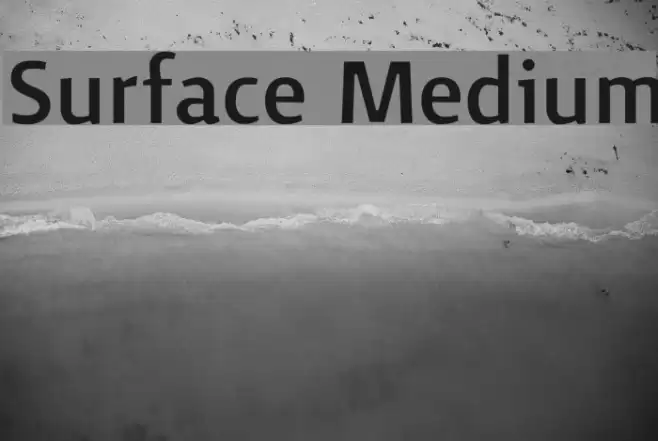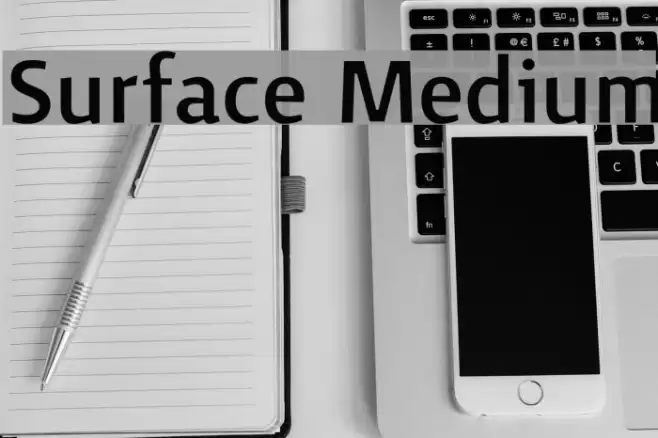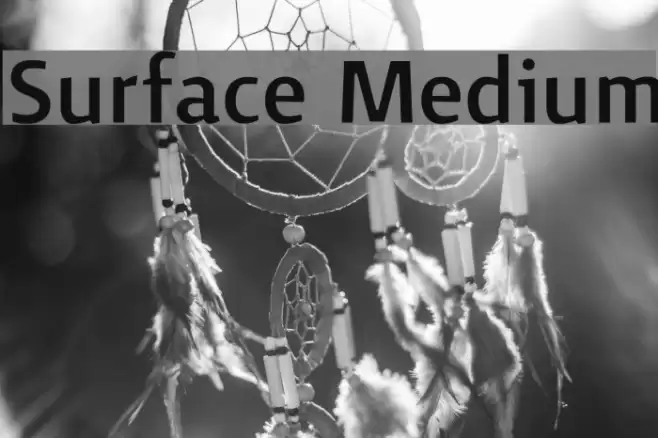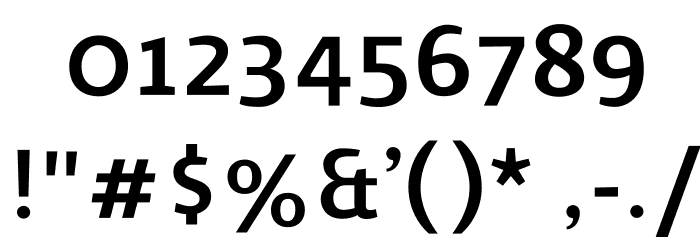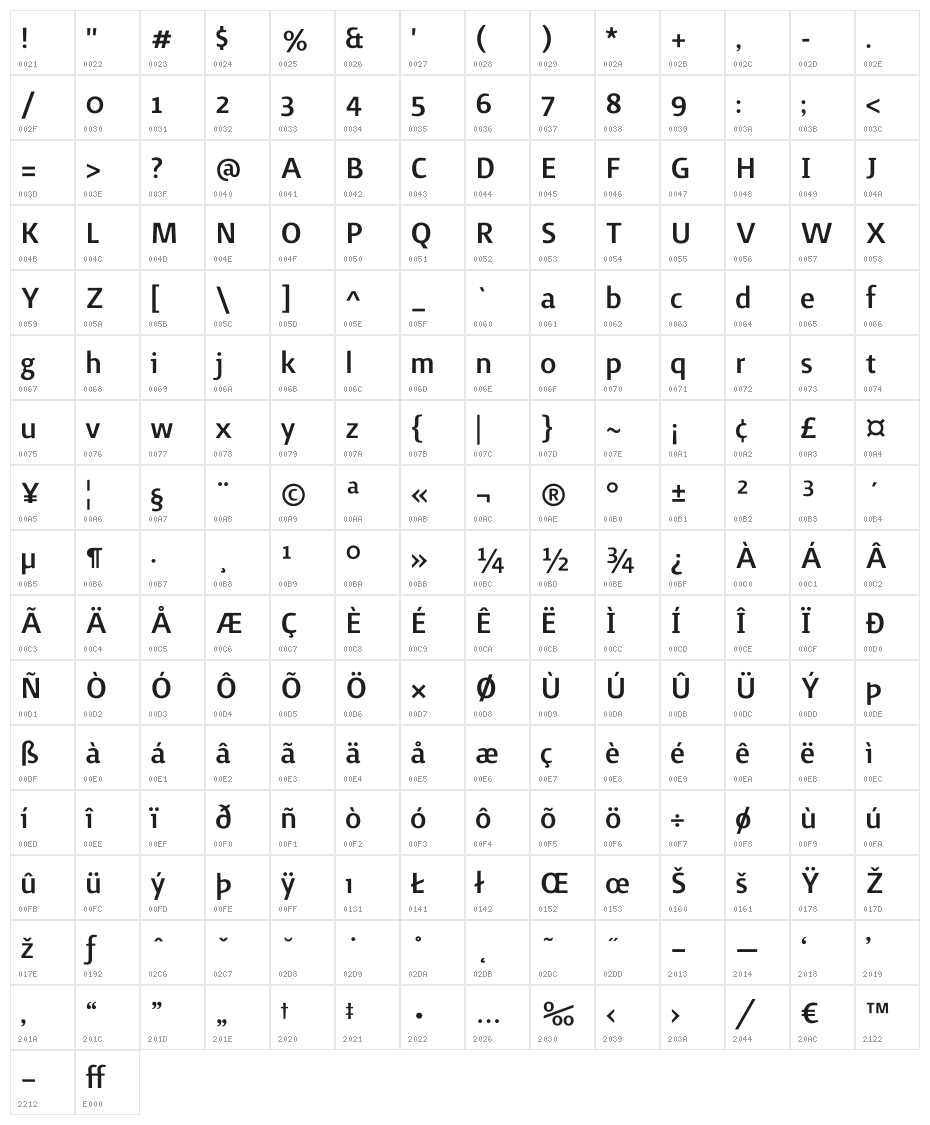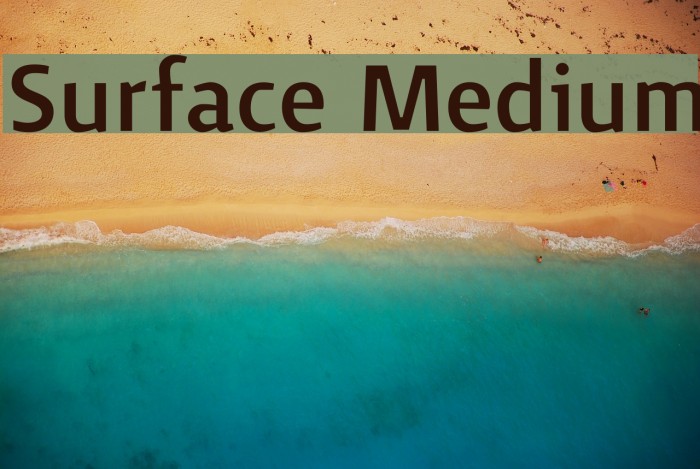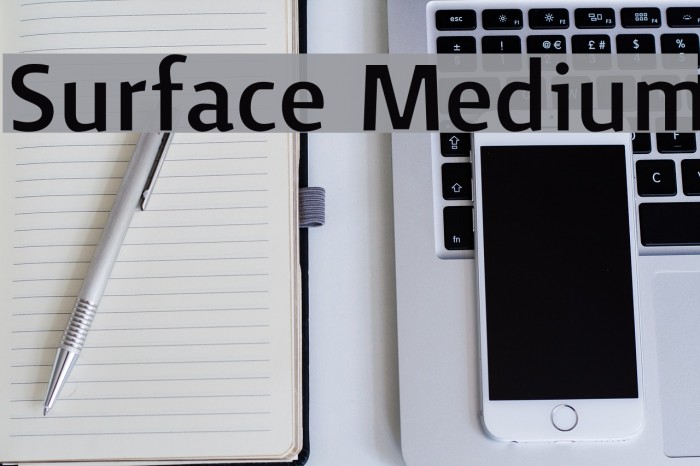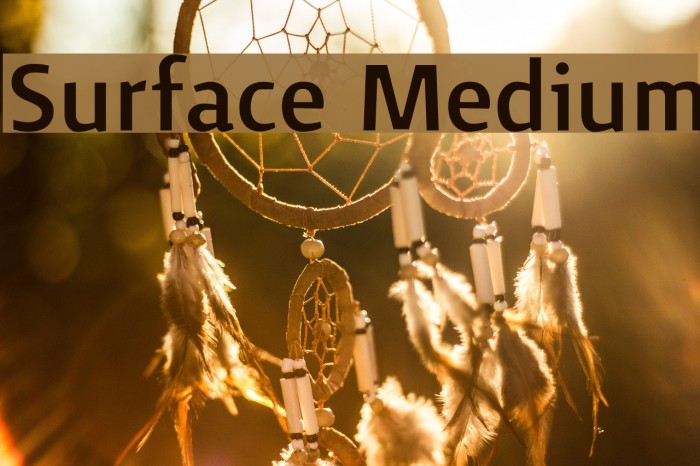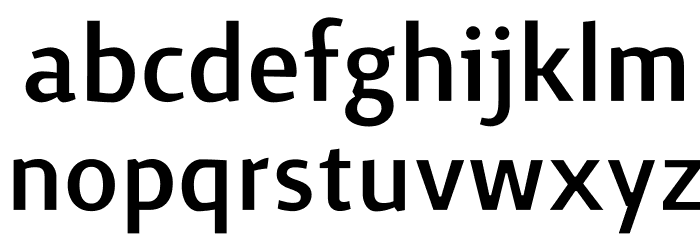
Surface Medium Font
Surface Medium Description
This font features a clean and modern sans-serif design with a medium weight, offering a balanced appearance that is both professional and approachable. The characters are well-proportioned with a consistent stroke width, providing excellent readability across various sizes. The uppercase letters are bold and assertive, while the lowercase letters maintain a friendly and accessible feel. The numerals are clear and distinct, making them suitable for data presentation. Special characters are well-integrated, ensuring versatility in different contexts. Overall, this font is ideal for conveying clarity and modernity.
A clean, modern sans-serif font with medium weight and excellent readability from Sans Serif fonts.